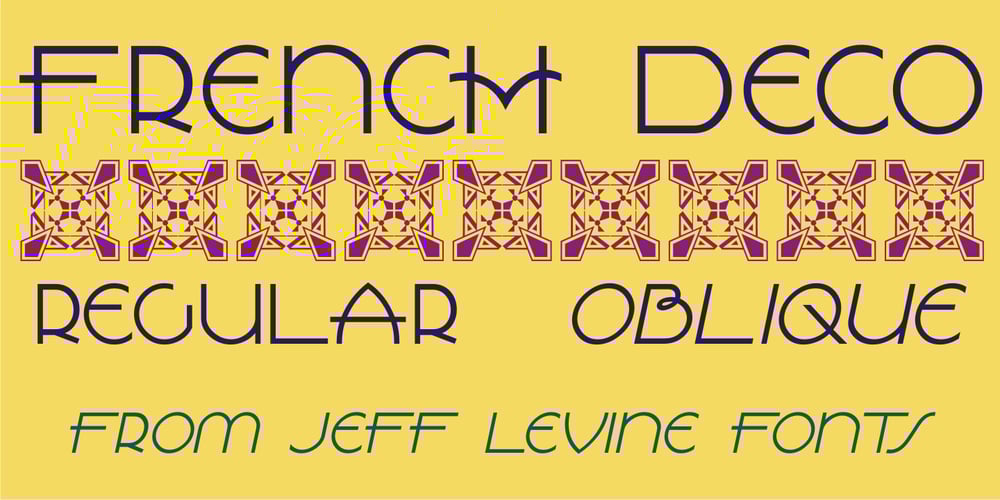
French Deco JNL Font Family was designed by Jeff Levine and published by Jeff Levine. French Deco JNL contains 2 styles and family package options. A wide and thin hand lettered Art Deco design from the vintage French lettering book “L’Art du Tracé Rationnel de la Lettre” was the inspiration for French Deco JNL; available in both regular and oblique versions.